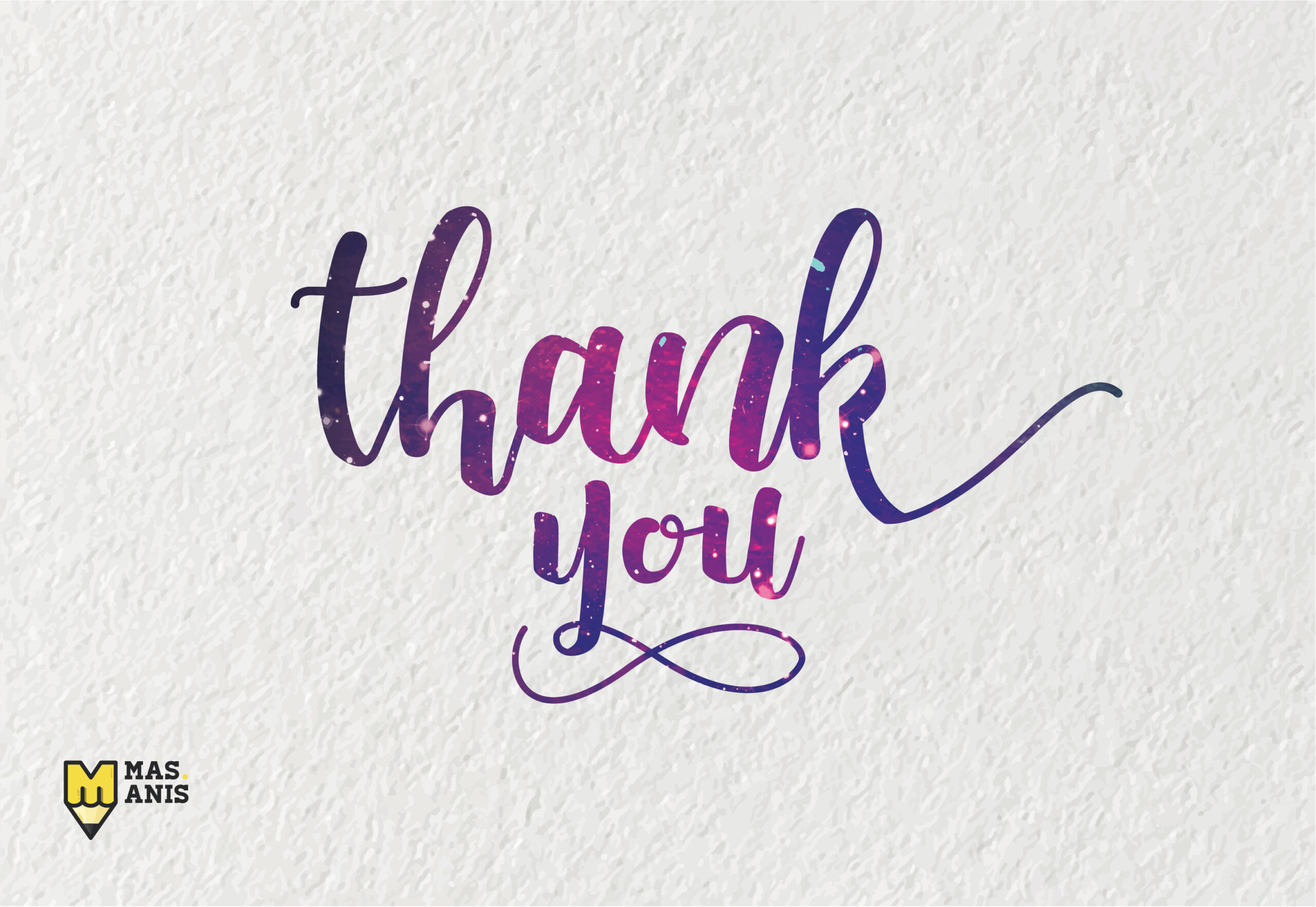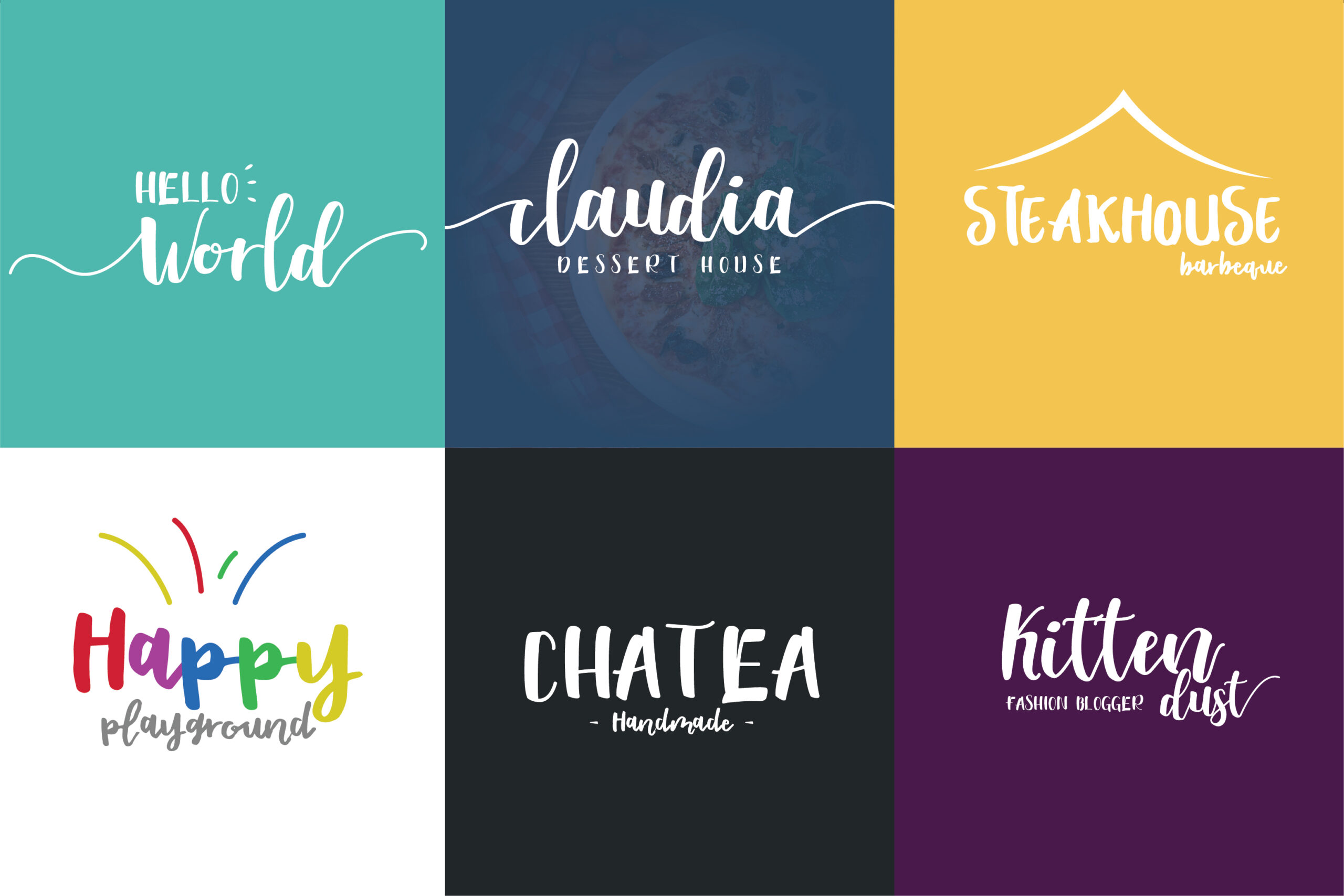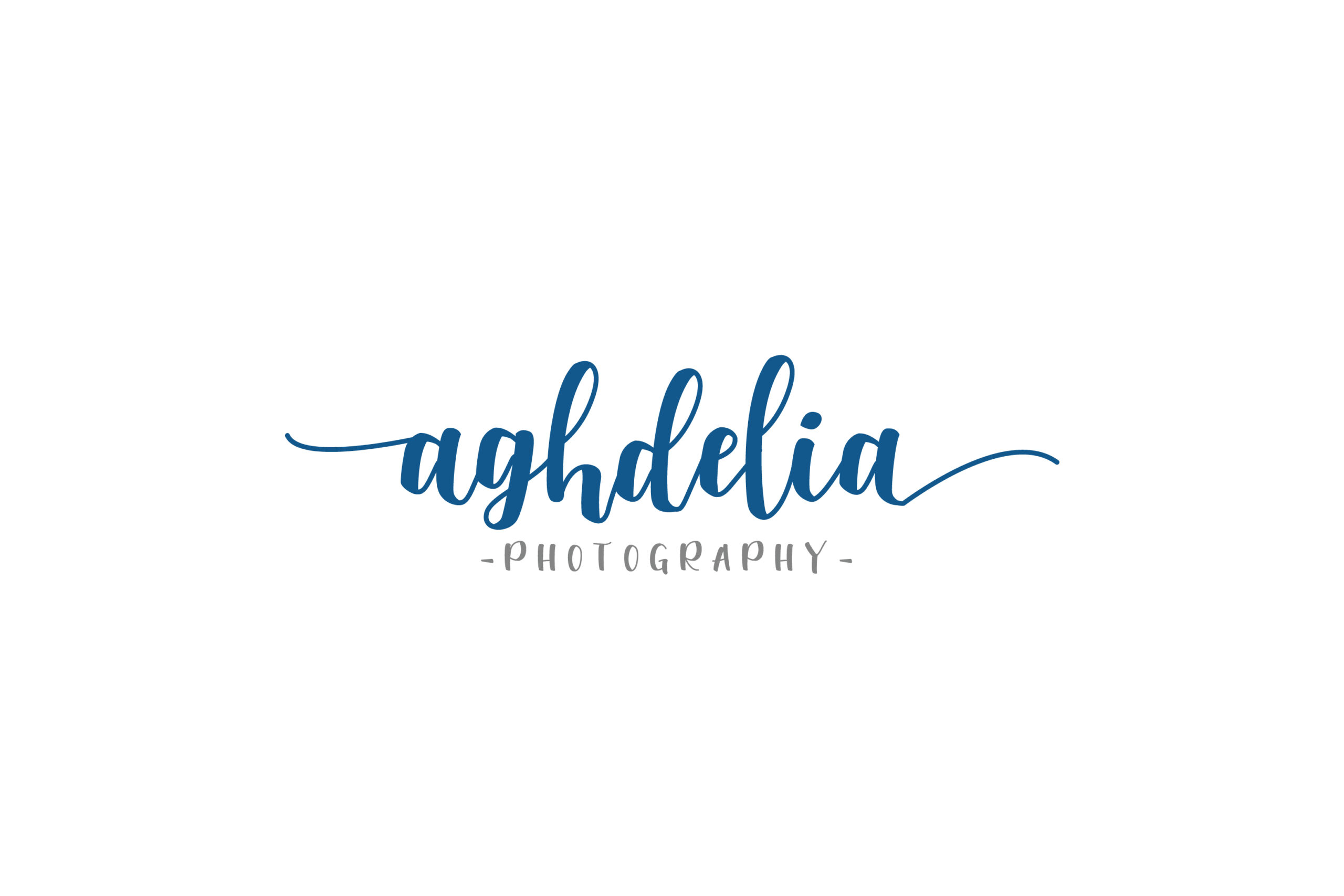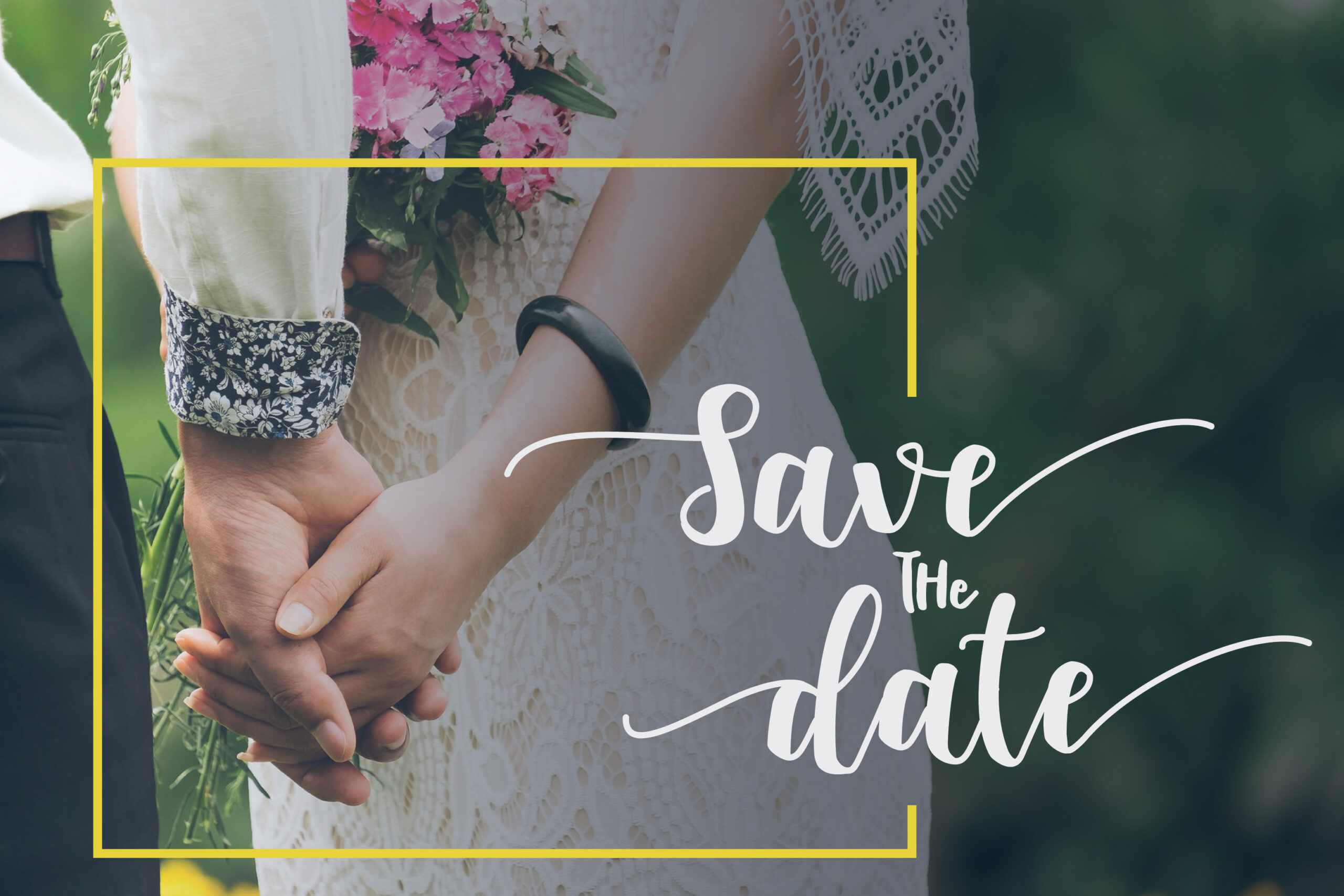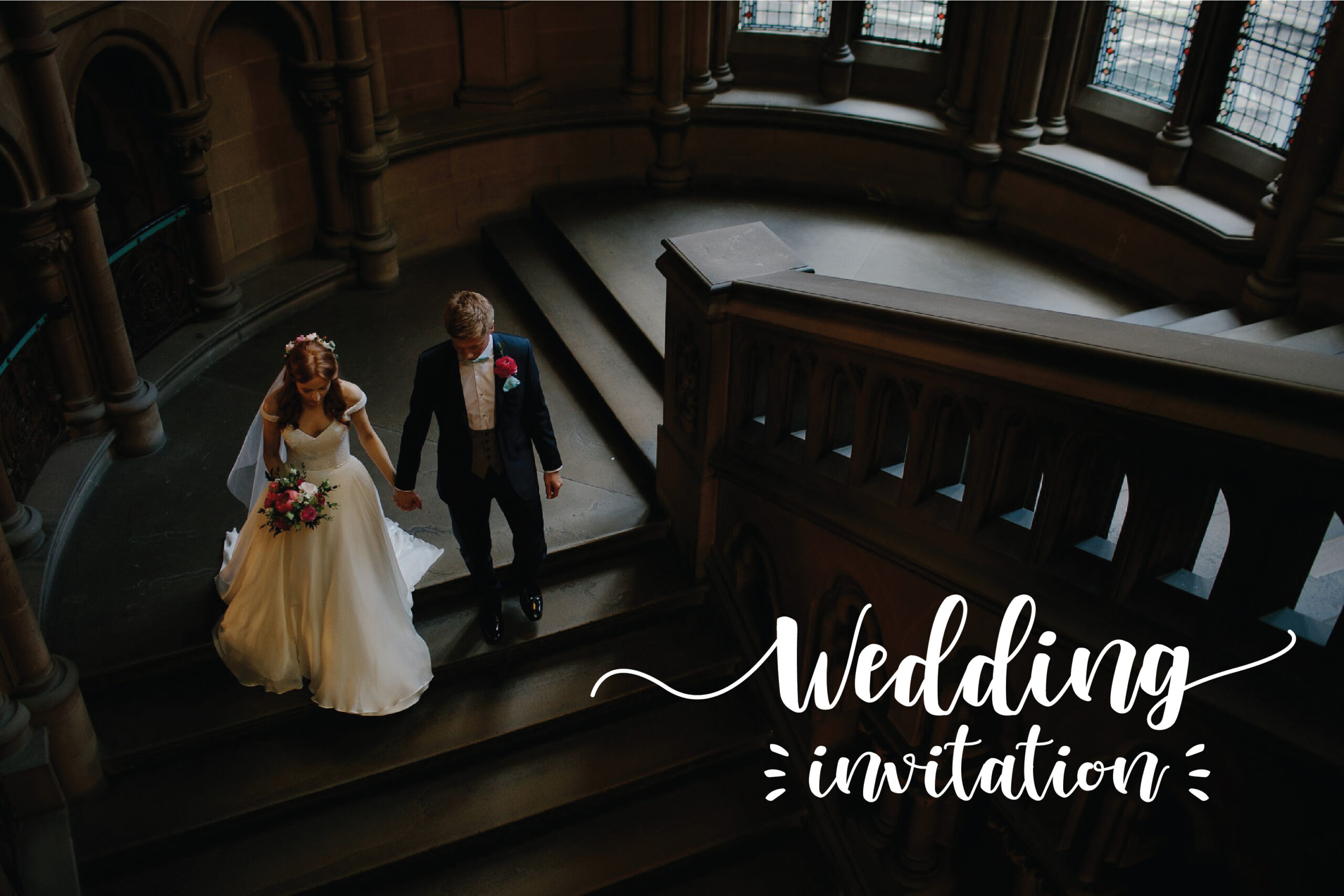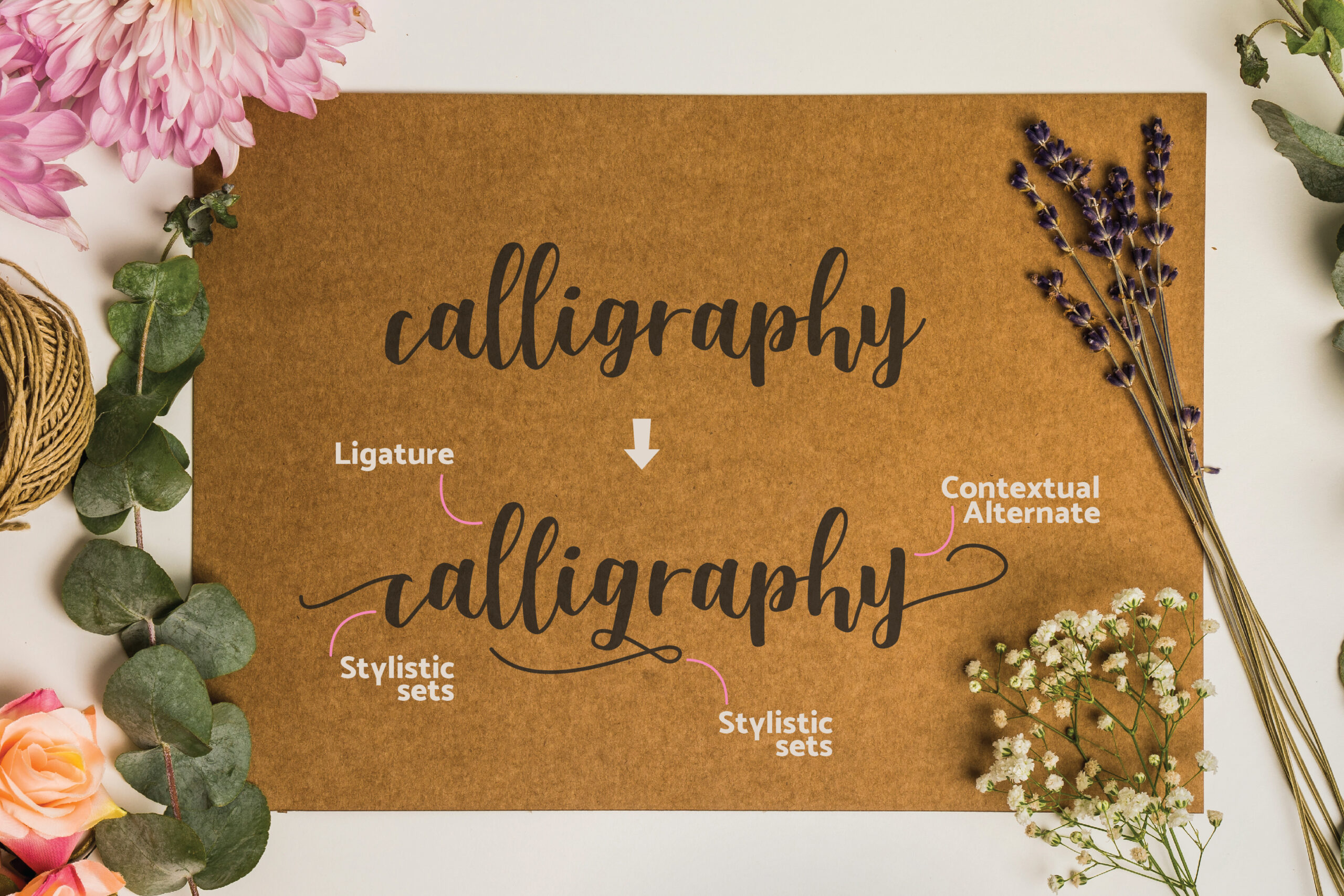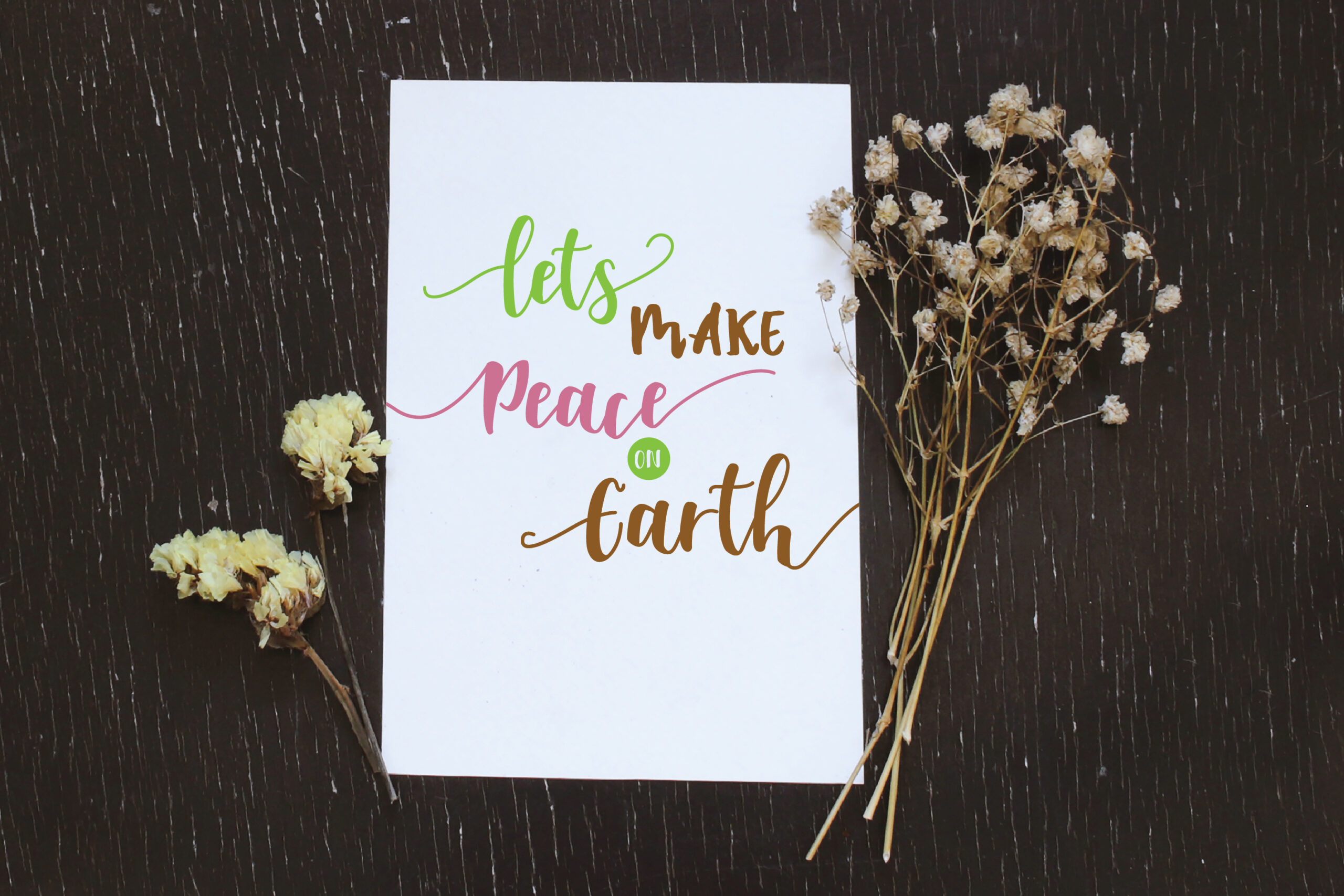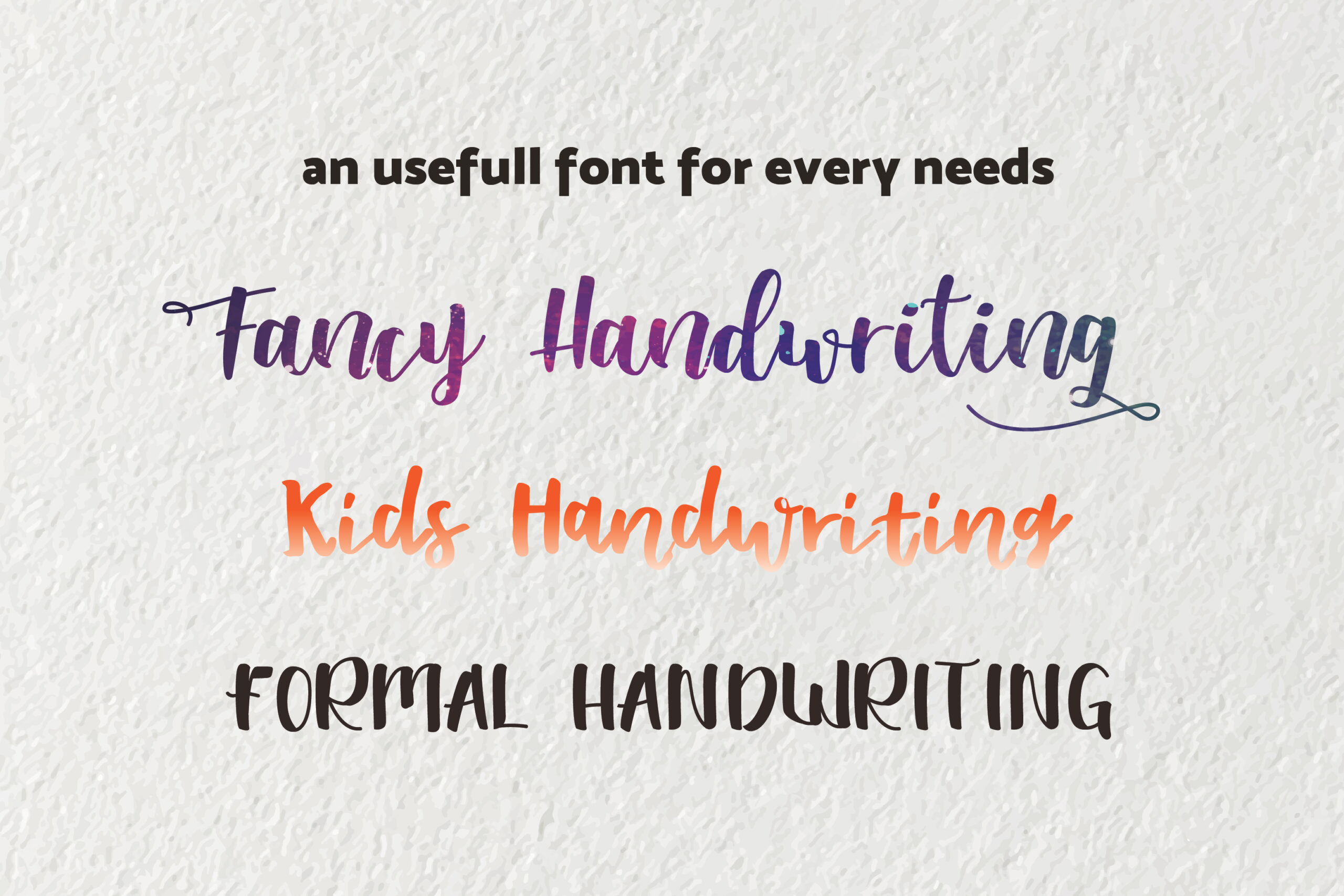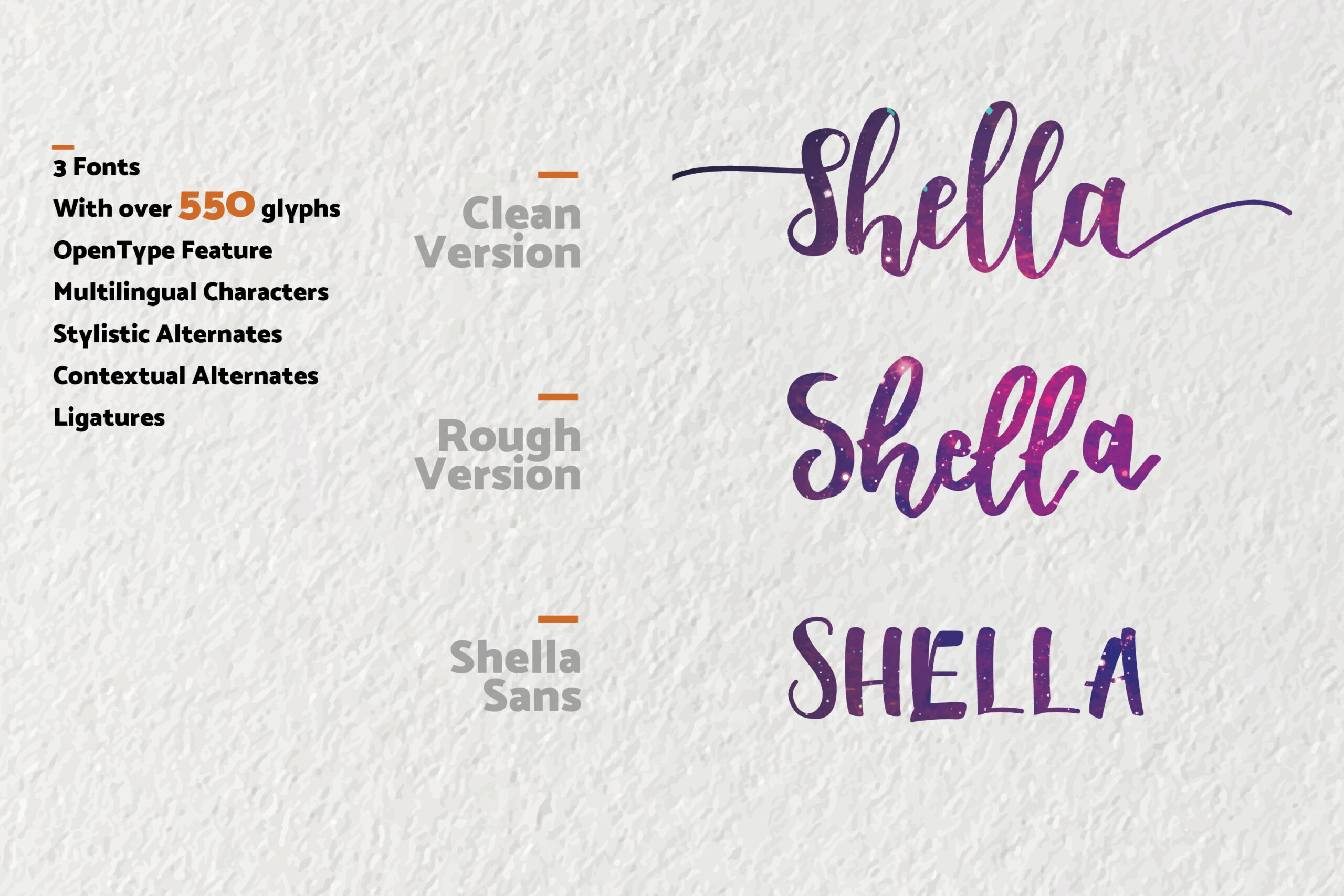
Shella Font
About Shella Font
Shella Font Duo is a hand brushed, fun, warm, and cozy typeface duo with 3 different fonts style. Shella Clean font combines with the Shella sans or Shella rough font to make each word unique and stunning, making it suitable for any range of design needs.